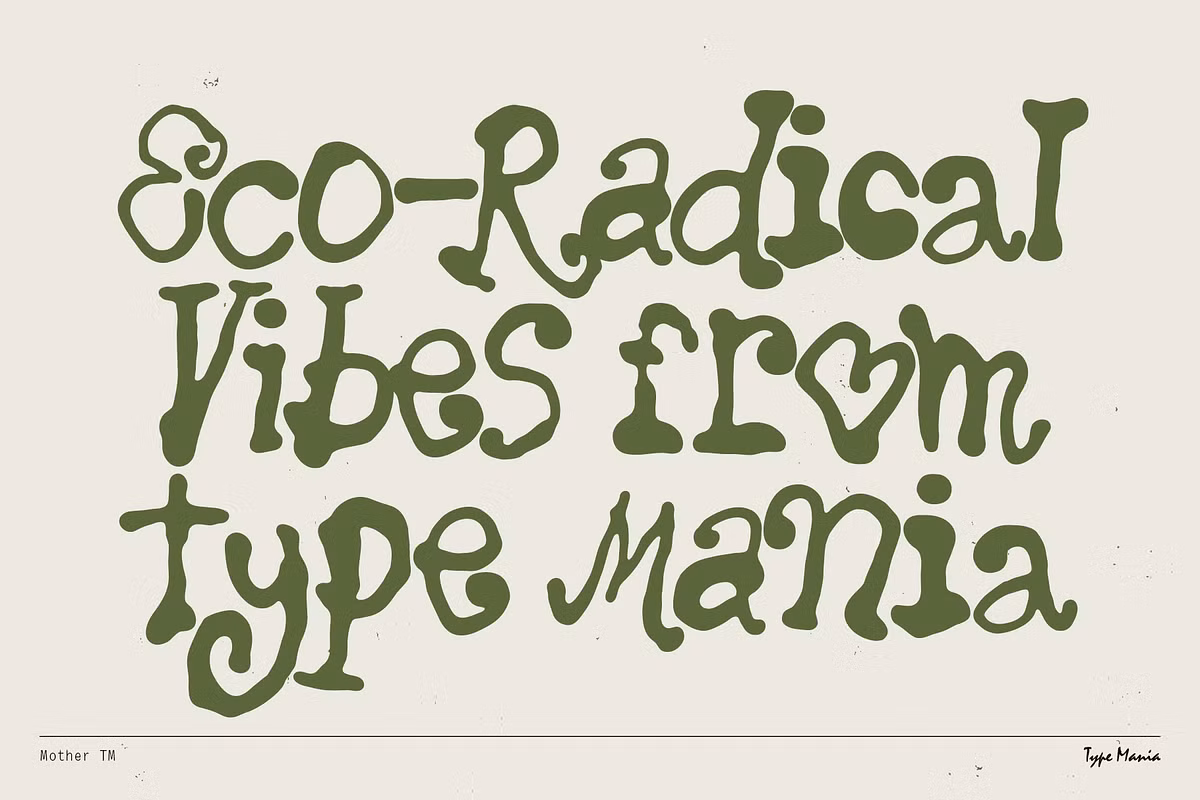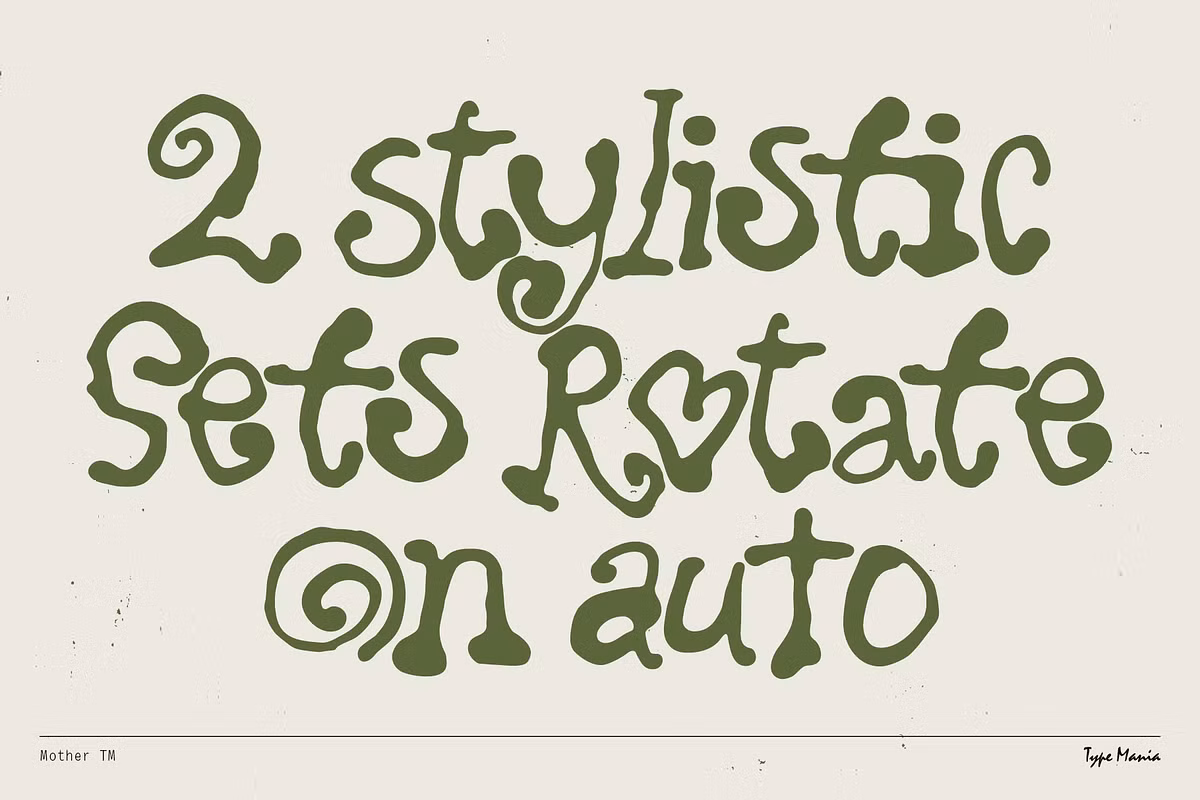
Mother TM: Hand-Grown Dynamic Font for Creative Typography
Meet Mother TM. Mother TM is a display typeface that looks like the hand‑drawn style. Mother TM shows the ink bleeds and the small details, in each letter. Mother TM works well for typography. Mother TM is not a tool. Mother TM is a canvas that lets you show the design ideas in a way. I enjoy using Mother TM because Mother TM feels like drawing with ink on paper.
I like the design of Mother TM. The design of Mother TM has a hand‑drawn look. I feel the hand‑drawn look gives a real feel. Mother TM builds each character by hand. Mother TM shows the shape of letters. I find the ink bleeds give texture. The texture makes the font feel alive. Mother TM works well for projects that need a touch. I think Mother TM is a choice for brands that want to reach their audience deeply.
Unique Features
Mother TM can switch between two style sets while you type. When you turn on the Alternates Mother TM creates a lively text flow. The text catches the eye and the design stays fresh. Mother TM also adds interest. Makes sure no two letters look the same. That gives you a type look.
Character Sets
I have found that Mother TM supports a range of character sets so Mother TM works well in applications. Mother TM includes:
- Basic Latin
- Western European
- Euro Central European
- Pan African Latin
I find that Mother TM works in languages and many contexts. Mother TM works well for the brands and for the projects that need support.
Use Cases
Mother TM has a style and flexibility. I have used Mother TM in projects from graphic design to handmade crafts. Here are the use cases:
- Branding: When I make a logo or build a brand identity Mother TM adds a touch. Mother TM makes my brand stand out in the market.
- Marketing Materials: From brochures to posters I use the font for the marketing materials. The font lifts the marketing materials. The font also makes the marketing materials more engaging and more attractive.
- Social Media Graphics: I use Mother TM in my media posts. Mother TM lets me make graphics that catch the eye and speak to the audience.
- Packaging Design: The natural feel of Mother TM makes Mother TM a good choice for product packaging. I find Mother TM works for brands in the wellness field or for brands. Mother TM feels right.
Make Mother TM shine. To get the most out of Mother TM, pair Mother TM with matching fonts that highlight the traits of Mother TM. Here are some pairing suggestions:
- Sans-serif fonts: I pair Mother TM with a sans-serif font like Montserrat or Open Sans. The contrast makes the display typeface stand out. The contrast keeps the display typeface readable. When Mother TM sits next to a sans-serif font the eye sees the difference. The display typeface stays easy to read.
- Serif fonts: I find that Serif fonts give a feel. I pair Serif fonts with a serif font such as Merriweather or Playfair Display. I see that the combination of structured parts creates a balance in my designs.
- Script fonts: For an artistic look you can combine Mother TM with a script font such as Pacifico or Great Vibes. Mother TM and the script font together add a handcrafted feel to your typography.
Mother TM is more than a font. Mother TM is a tool for expression. Mother TM has the hand‑drawn style, many characters and many uses so designers and brands can try ideas. I use Mother TM for my projects. I see how Mother TM fits my work. If you want to make a statement in your brand improve your marketing or make media graphics, Mother TM works well. Use the look of typography with Mother TM. Let your creativity grow.